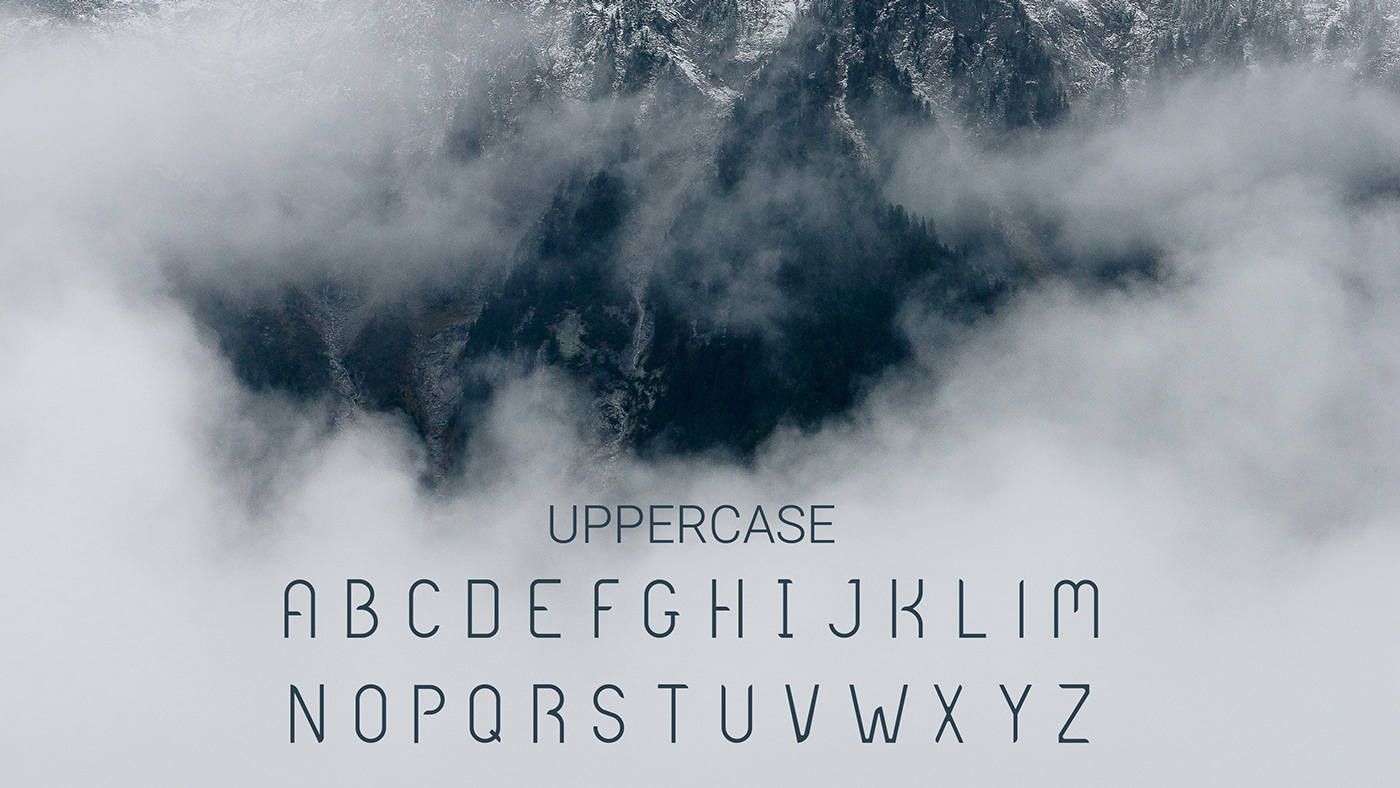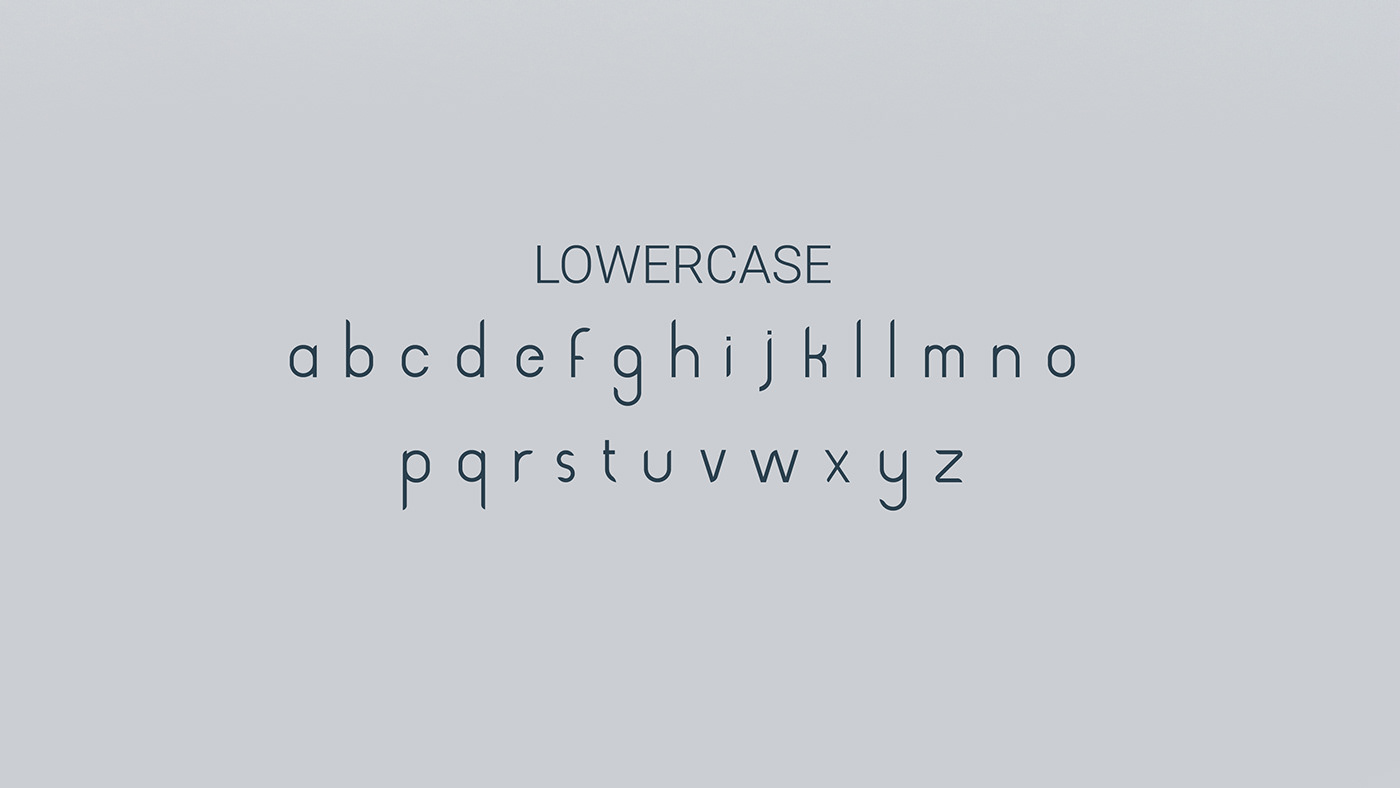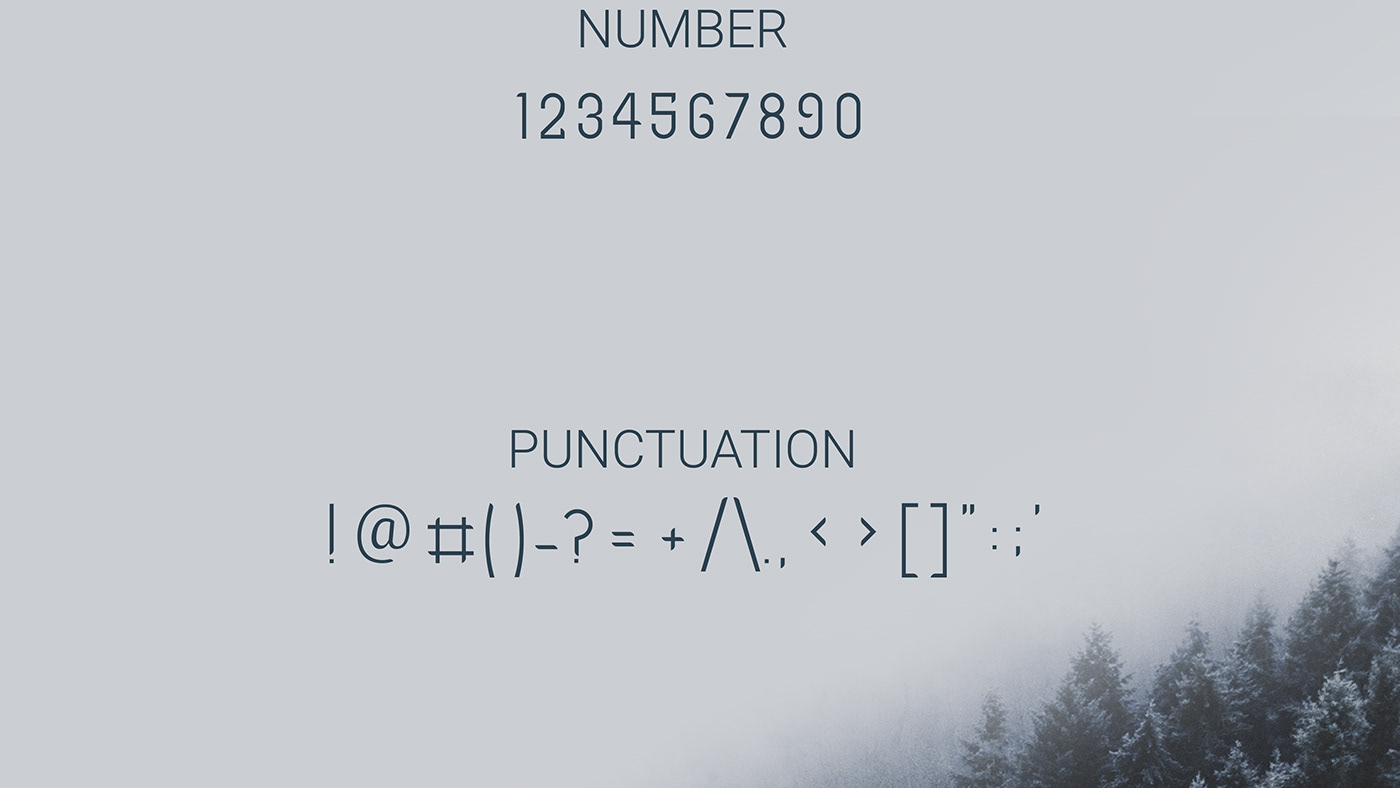
Beway Typeface
Elegant and sleek design. Contrast lines that can be used as business cards, branding, magazines, quotes, advertisements, and more. A little is a type of font that has character. Make something beautiful today with Slightly ….